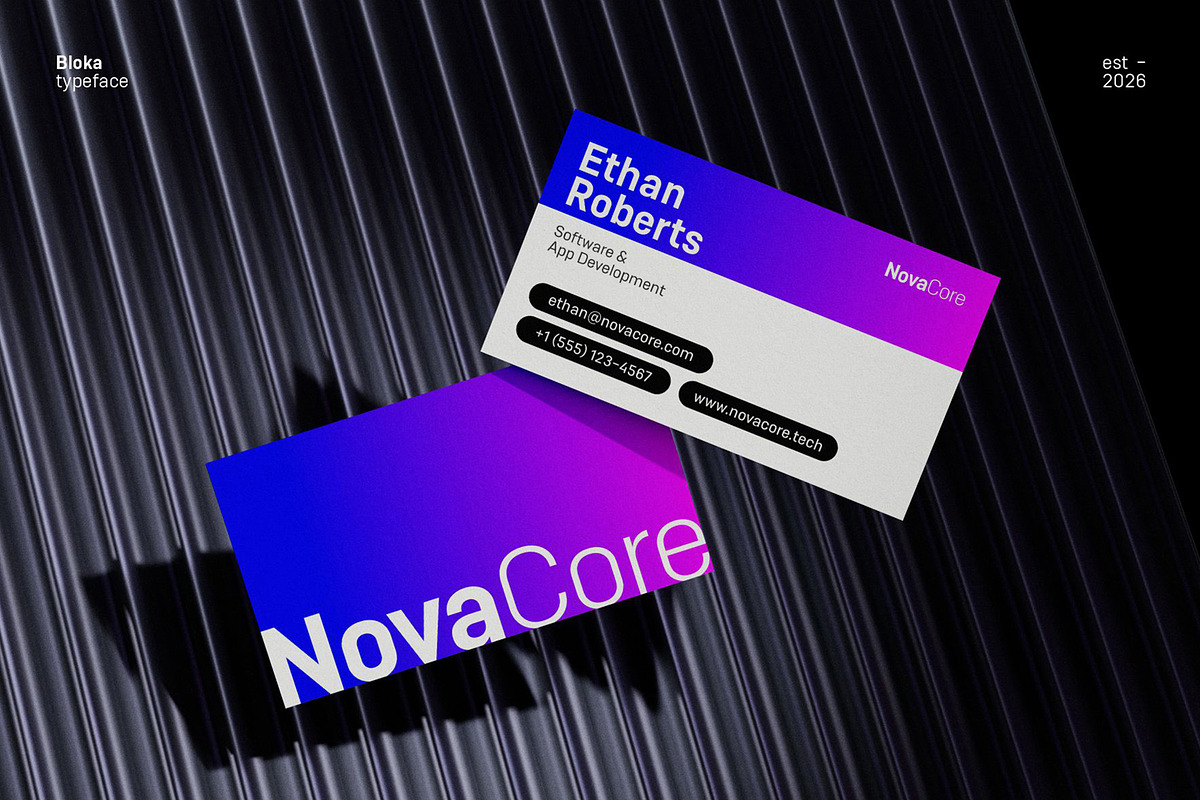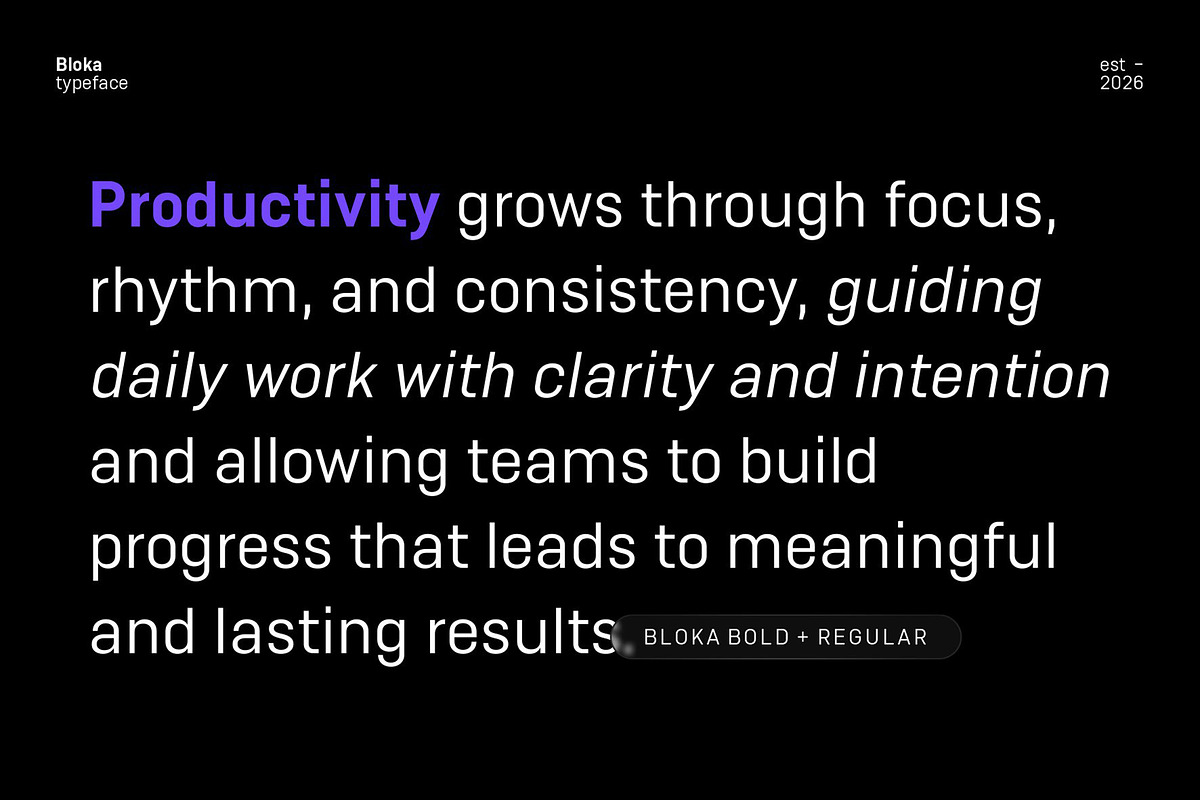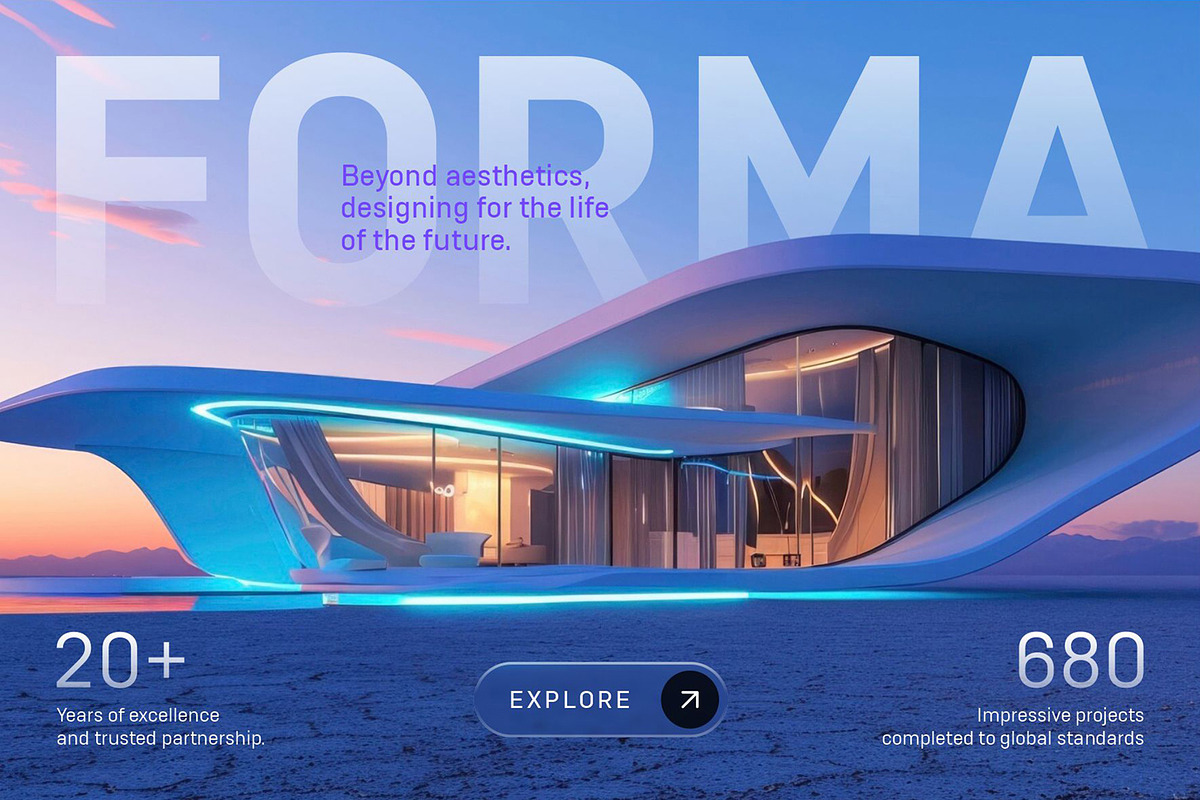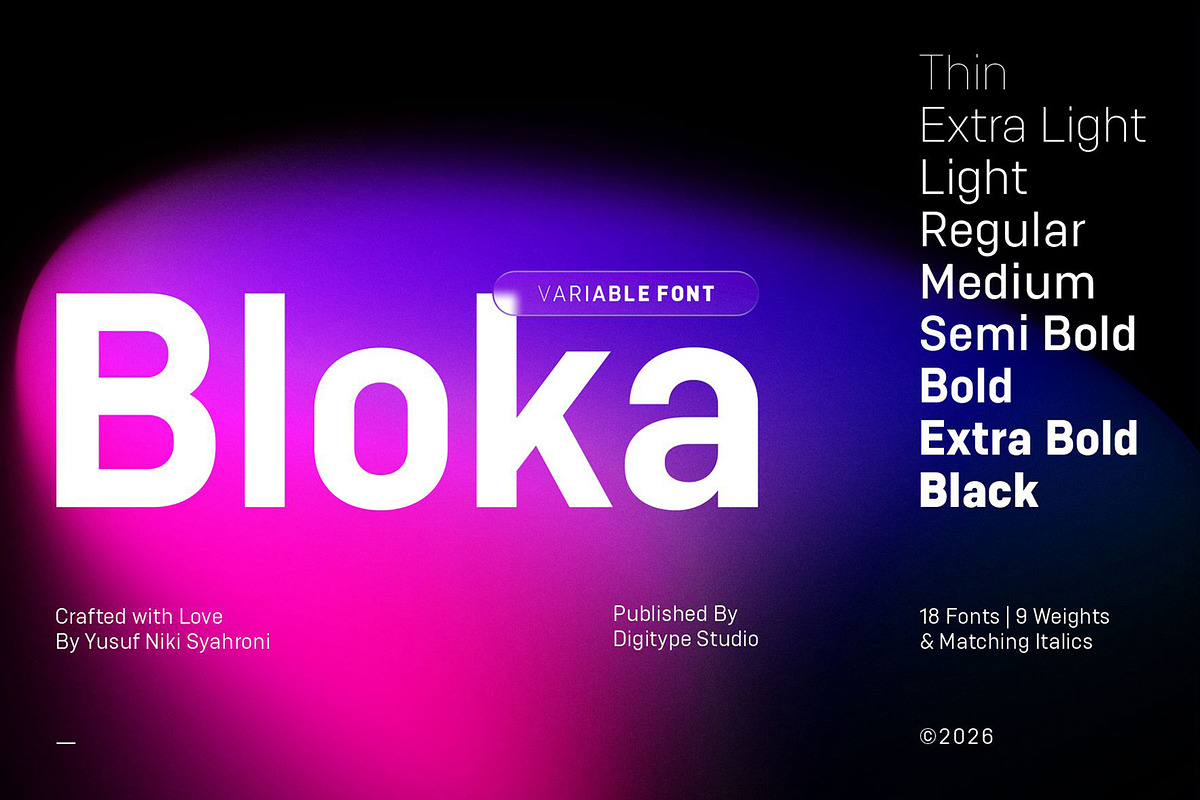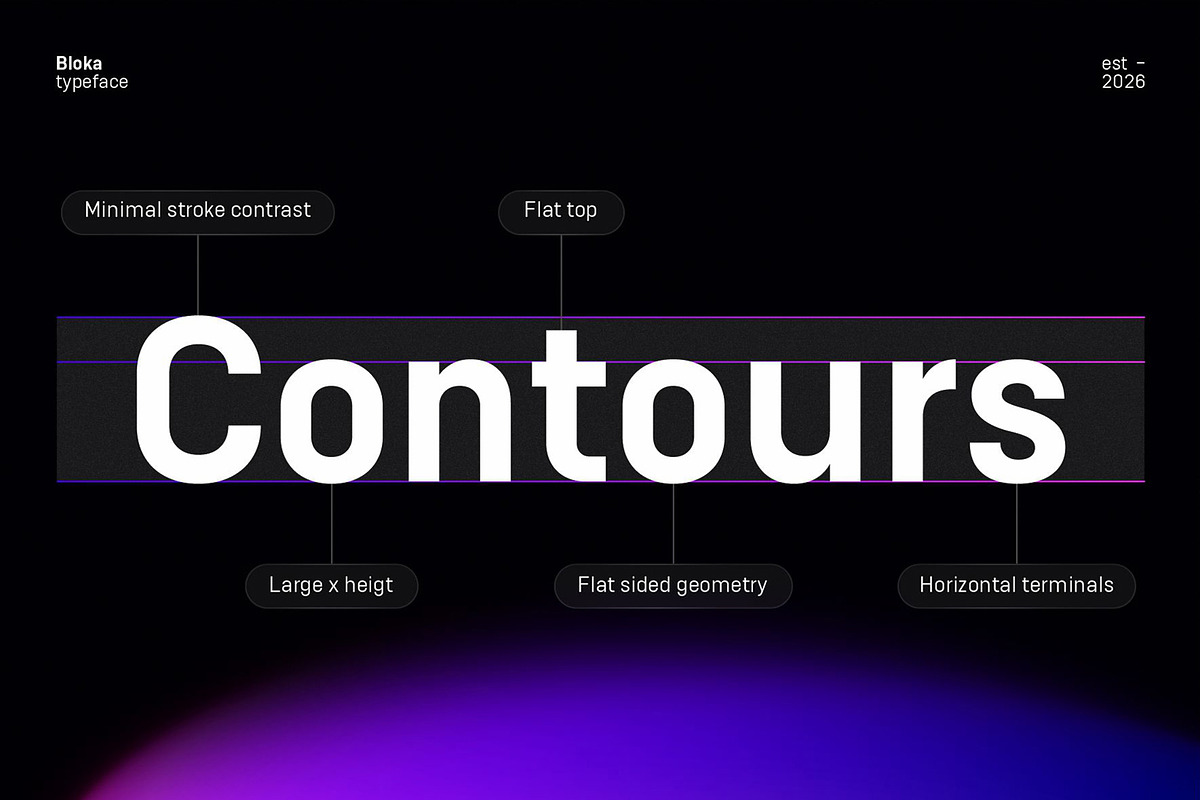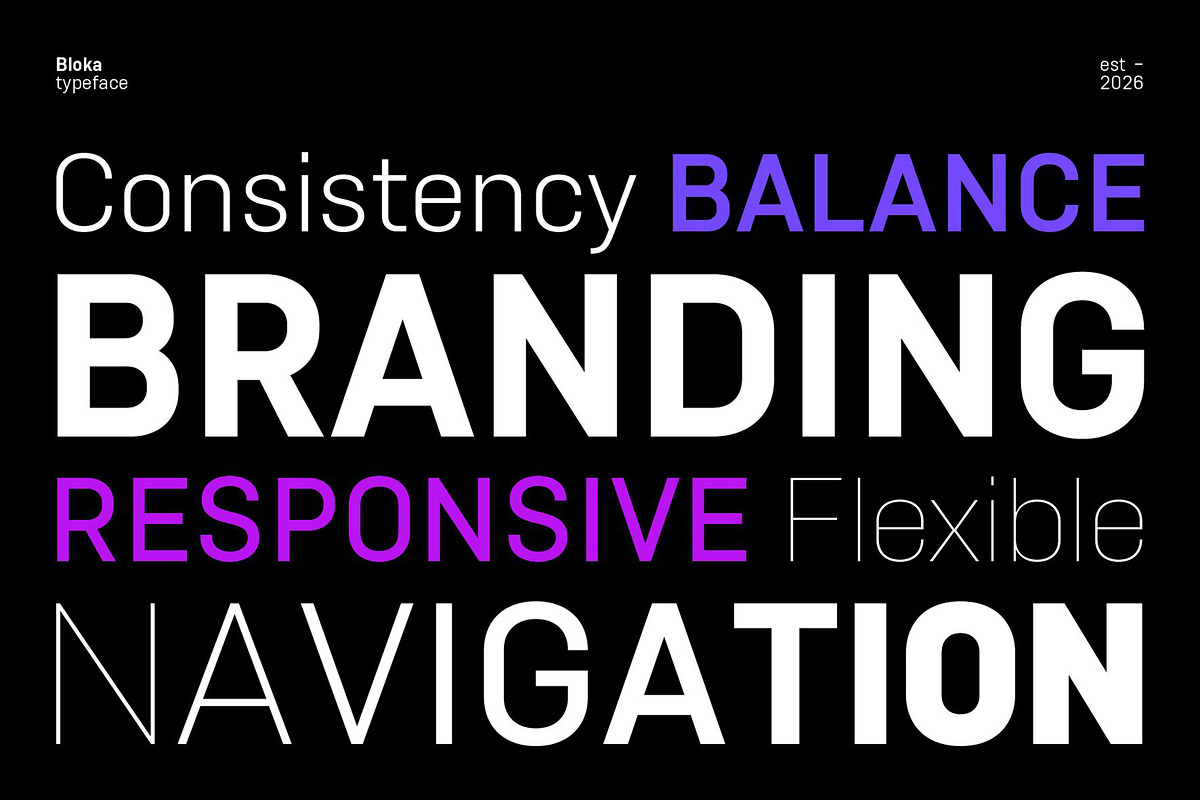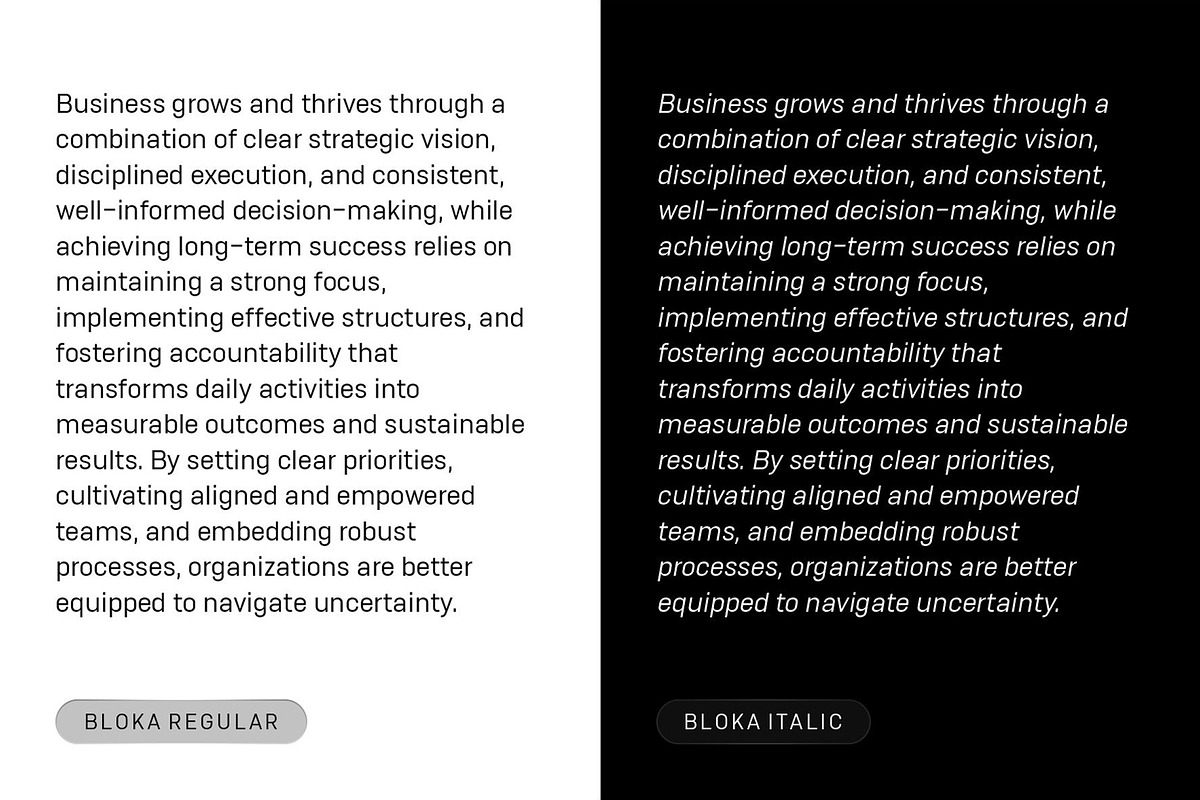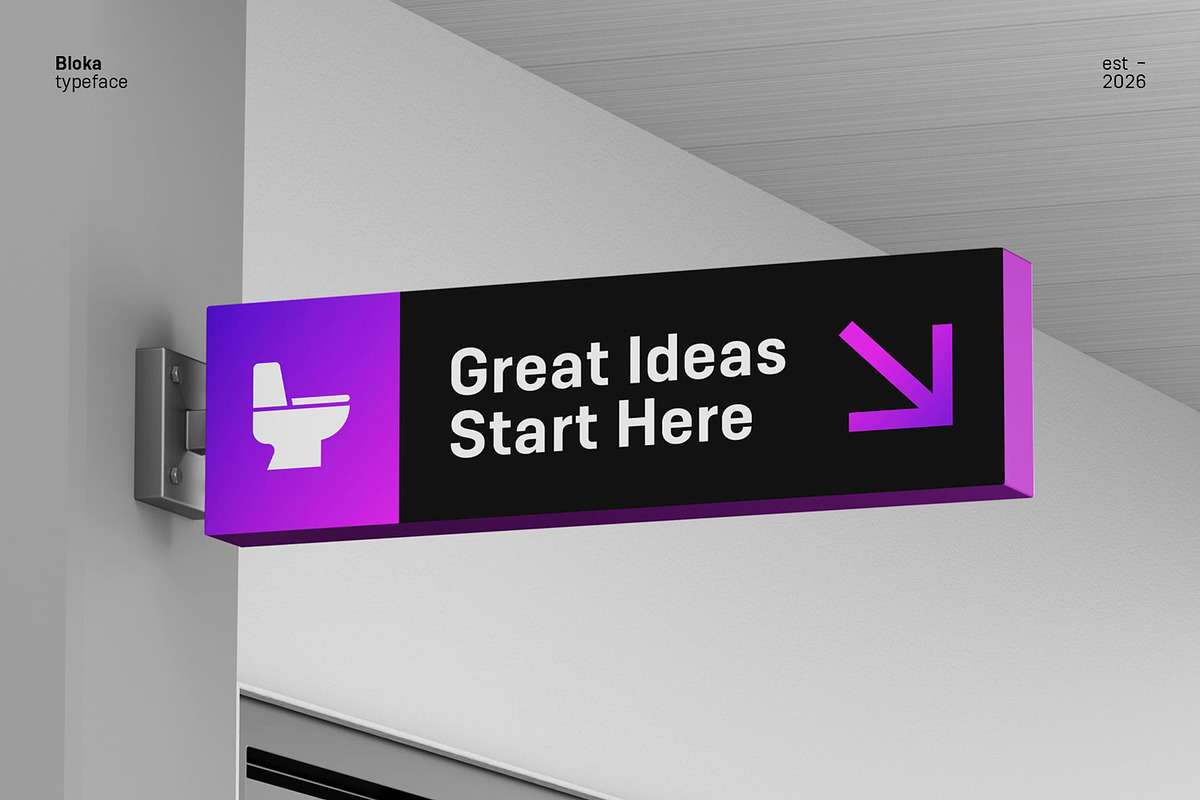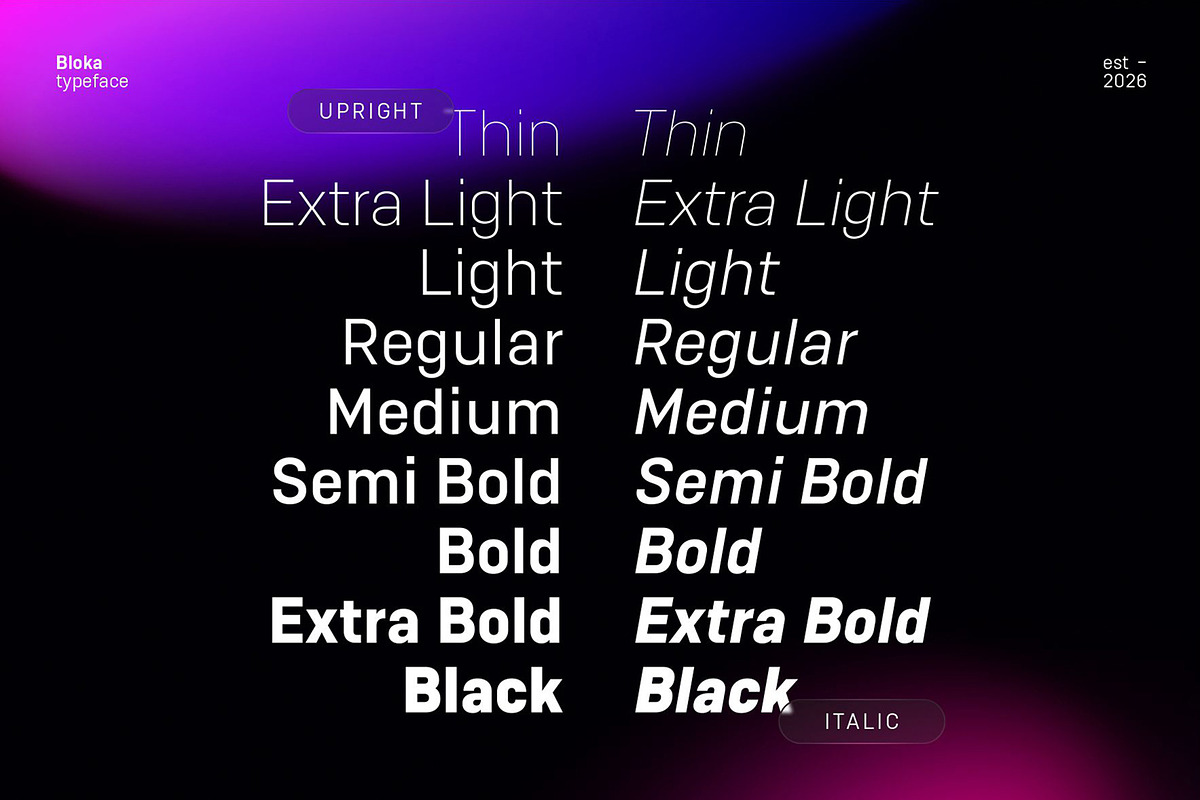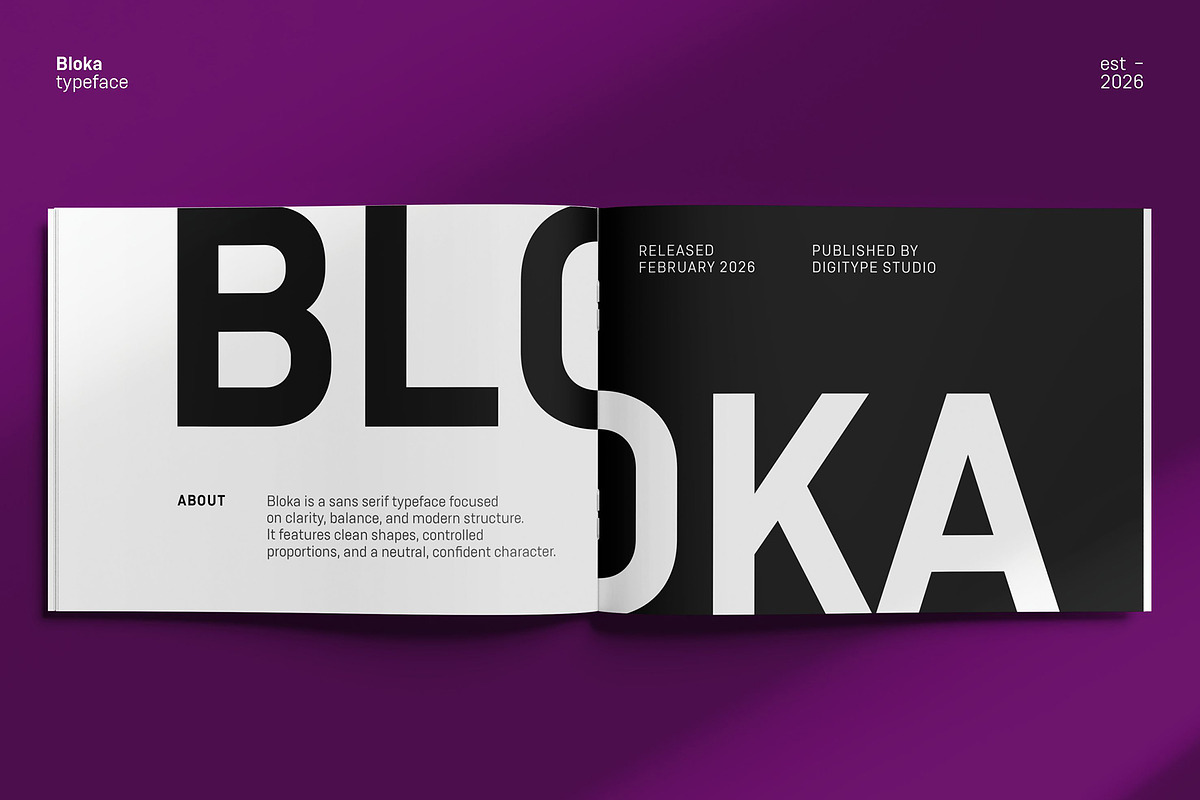
Bloka | Sans Serif Family
Bloka is a geometric sans serif typeface precision-engineered to deliver a perfect balance between functionality and modern aesthetics. Featuring a robust structure and clean curves, Bloka exudes confidence while remaining versatile enough for the diverse demands of contemporary design.
Available in 9 weights ranging from Thin to Black with matching italics, Bloka also includes variable font support for seamless weight control. It is ideal for branding, logos, headlines, editorial layouts, UI/UX, posters, and corporate identities, across both digital and print platforms.